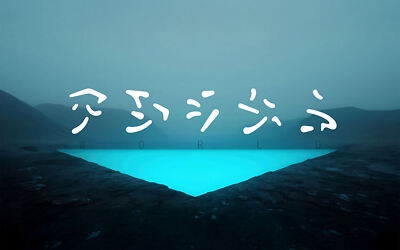
Feb 7, 2025DisplaySakura Town Font Sakura Town is a hand painted brush font inspired by Japanese calligraphy. With its authentic look, the font is suitable for branding, logos, ads, clothing and more. Font DetailsDesigned by: Letterhend StudioWebsiteLicense: Free for personal use Download Sakura Town FontFile size: 70.04 KBCreated: February 16, 2025Updated: February 16, 2025 Download Explore similar fonts Bushido Stroke Font Katsuno Japan Font Benitsuki Font Miko Wave Font Noka Font Akihabored Font # Asian# Brush More fonts by Letterhend StudioFront Picture FontStay Weekend Font DuoDanielle Harris FontDaisy & Violette FontSecret Motions FontYork Village FontAnglers Harbor Font DuoShady Rocks Font